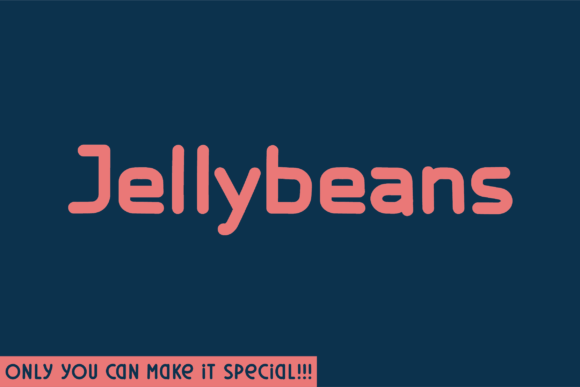
Introducing Jellybeans Font, the whimsical and remarkable sans serif font that will electrify your creative projects! Dive into a world of imaginative lettering and transform your designs into captivating masterpieces.
With its playful and distinctive style, Jellybeans Font effortlessly adds a touch of whimsy and uniqueness to your creations. Whether you're crafting captivating quotes, organizing notes with flair, designing eye-catching tees, crafting memorable logos, or engaging your audience on social media, Jellybeans Font is your go-to choice for injecting personality and charm into every project.
Step into a realm of creativity where imagination knows no bounds. Unleash your inner artist and let Jellybeans Font inspire you to create stunning visual expressions. From whimsical quotes that resonate with your audience to meticulously organized notes that bring clarity to your thoughts, Jellybeans Font is your creative companion, guiding you along the path of artistic brilliance.
But Jellybeans Font is more than just a pretty face. It's a font that's as versatile as it is beautiful, effortlessly adapting to a wide range of design needs. Whether you're creating fun tees that express your unique style or designing logos that leave a lasting impression, Jellybeans Font rises to the occasion, delivering exceptional results every time.
And let's not forget about social media, where Jellybeans Font truly shines. Its captivating charm and playful personality will make your posts and updates stand out from the crowd, ensuring that your message reaches a wider audience and resonates with your followers.
So, why settle for ordinary when you can have extraordinary? Embrace the magic of Jellybeans Font and unlock a world of creative possibilities. Let your imagination soar, let your designs flourish, and experience the joy of creating with a font that truly captures your essence.